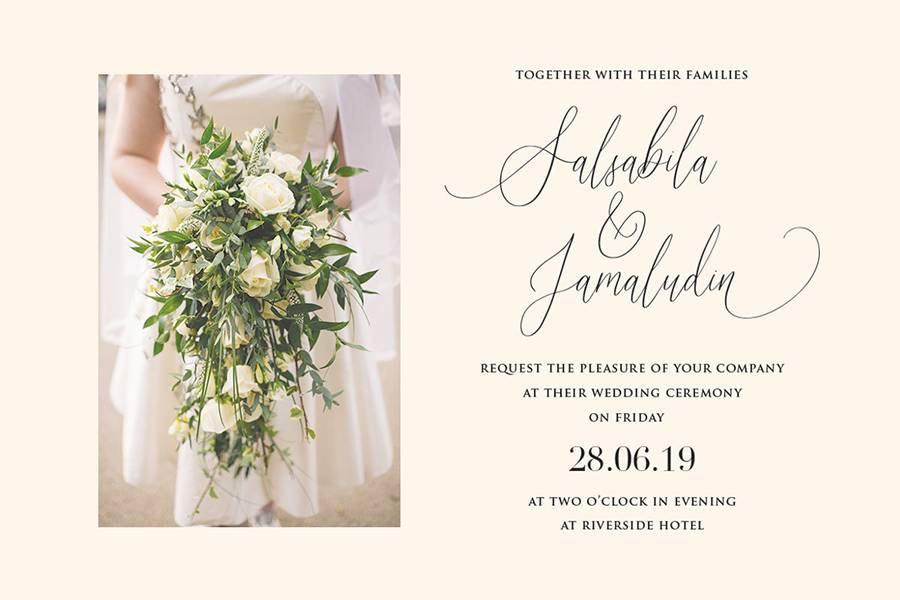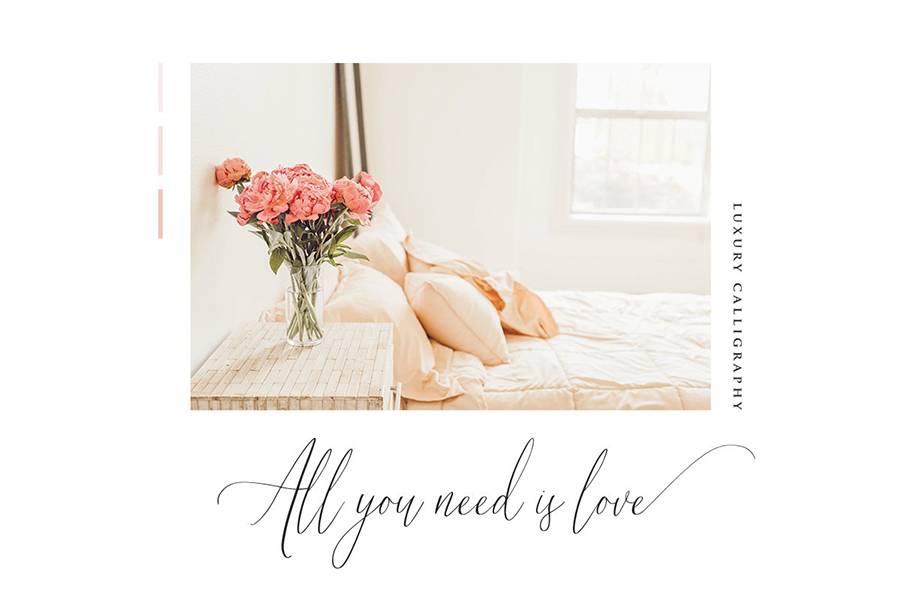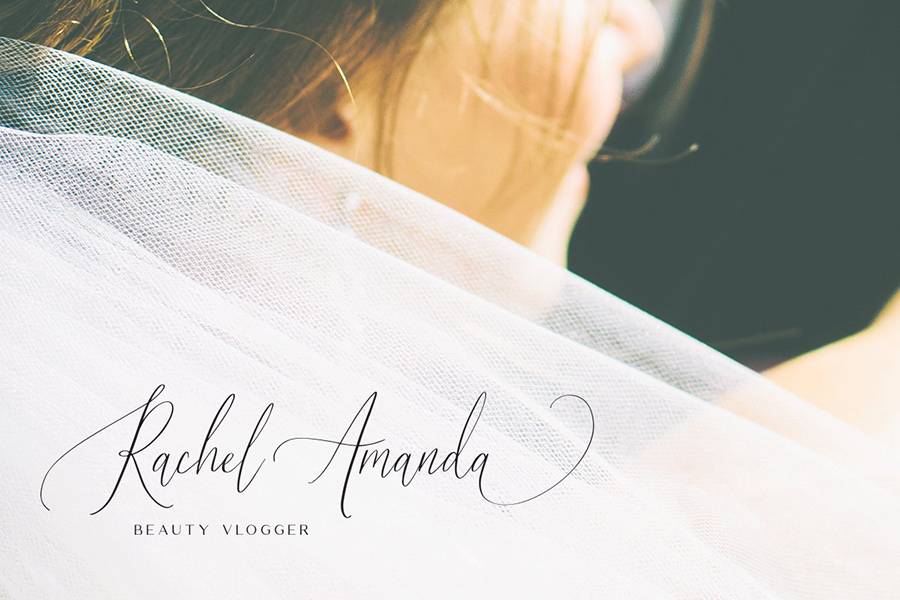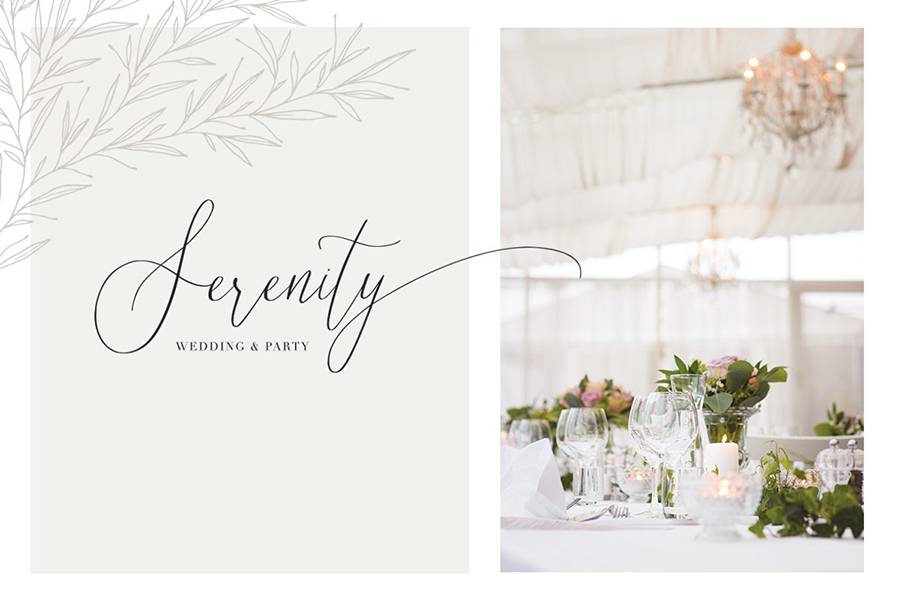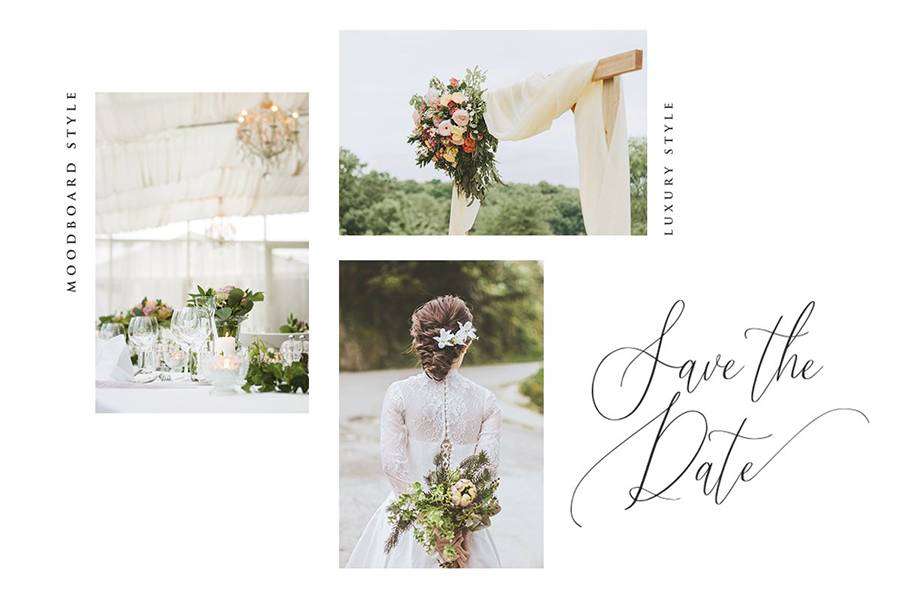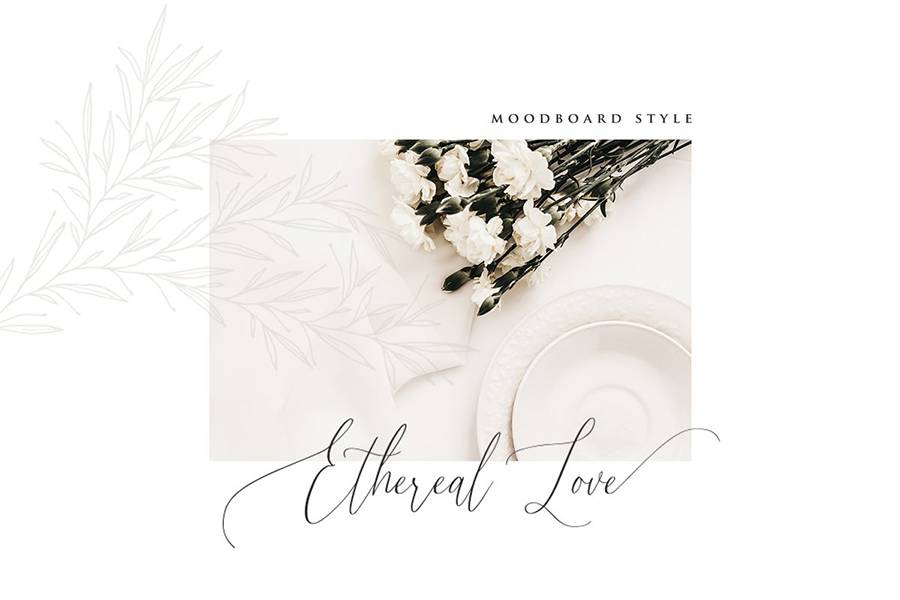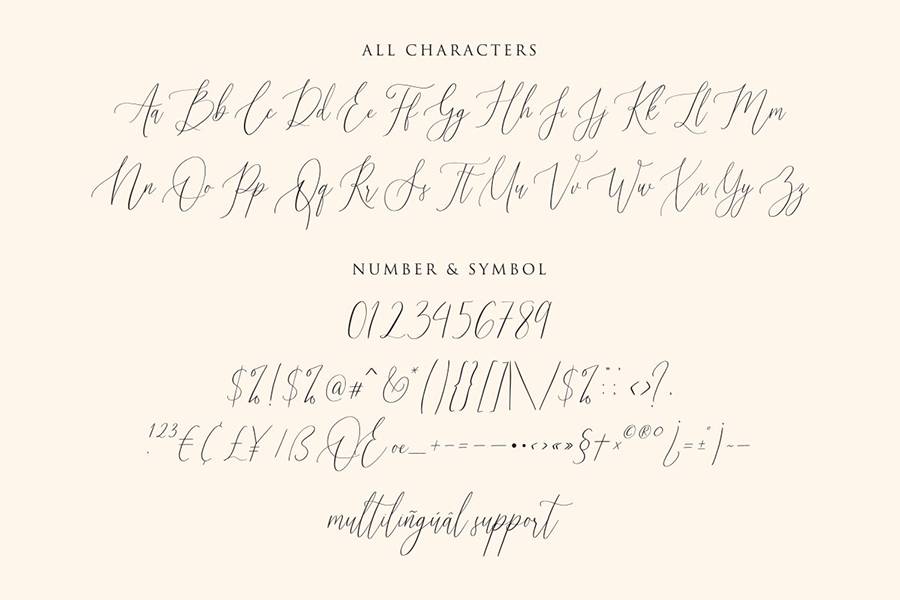
Audrey & Reynold Luxury Script is an elegant, delicate script font characterized by its fine, flowing strokes and graceful, high-contrast lines. Its slender, calligraphic letterforms convey a sense of sophistication and luxury, making it ideal for upscale branding, wedding invitations, and refined editorial designs where a touch of classic romance and beauty is desired. This font’s airy, handwritten style works beautifully in contexts that require a personal, stylish, yet polished appearance.
Audrey & Reynold Luxury Script Font
About Audrey & Reynold Luxury Script Font